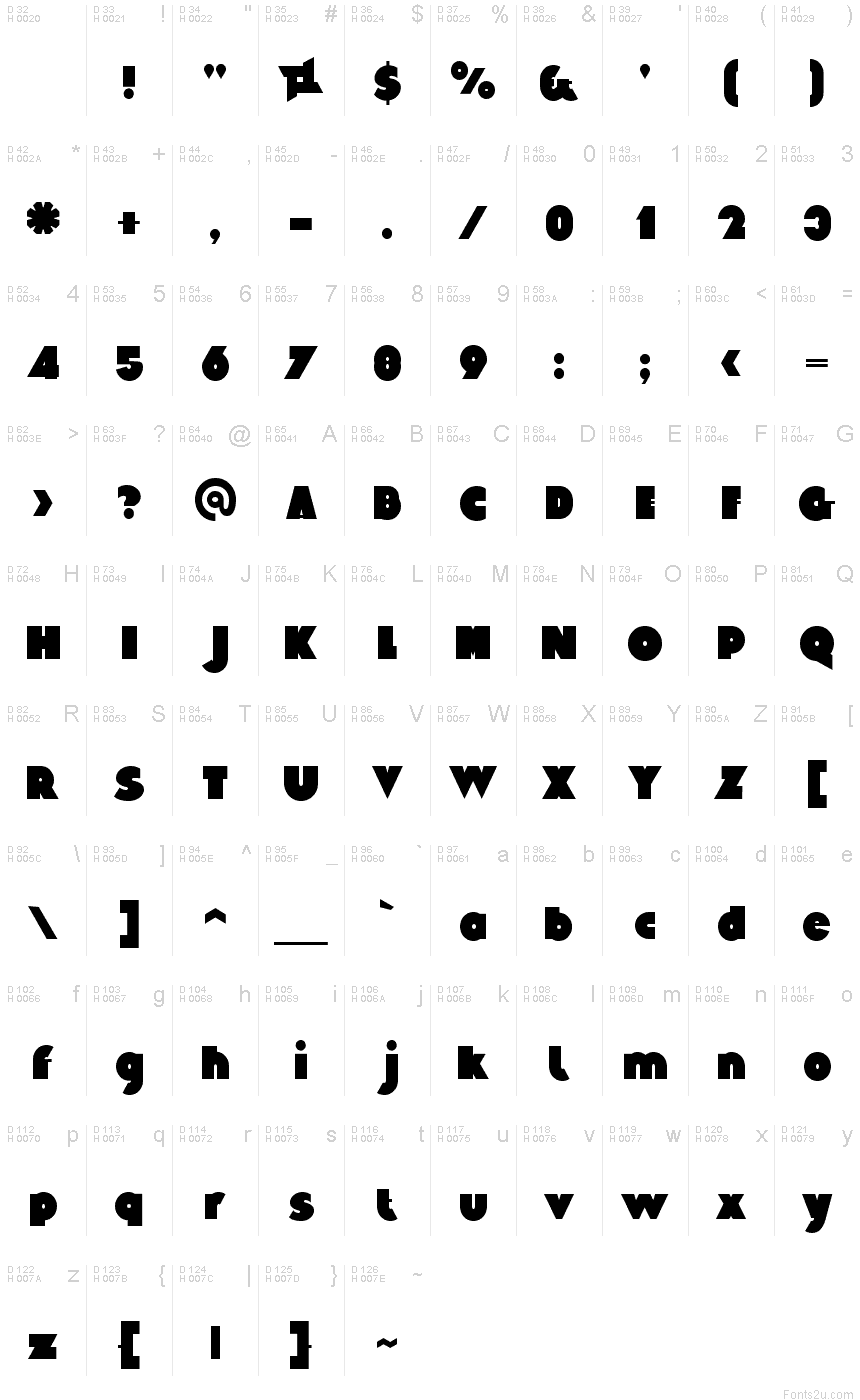
Eygptian
Eygptian font is a free retro display typeface that hits like a bold poster headline from a dusty record shop window. Heavy, inky shapes and chunky curves give each letter a solid, almost sculpted feel, while those angled cuts and the sawtooth top edge add a sly, graphic twist. It’s dense, loud, and unapologetically black, so even a single word feels like a logo.
Using Eygptian, you can turn short phrases into punchy centerpieces for posters, logos, packaging, album covers, event flyers, and bold social media graphics. This free font works best at large sizes with a bit of extra spacing to let the thick forms breathe. For longer copy, pair it with a clean, light-weight sans serif to keep the focus firmly on Eygptian’s dramatic, retro shapes.